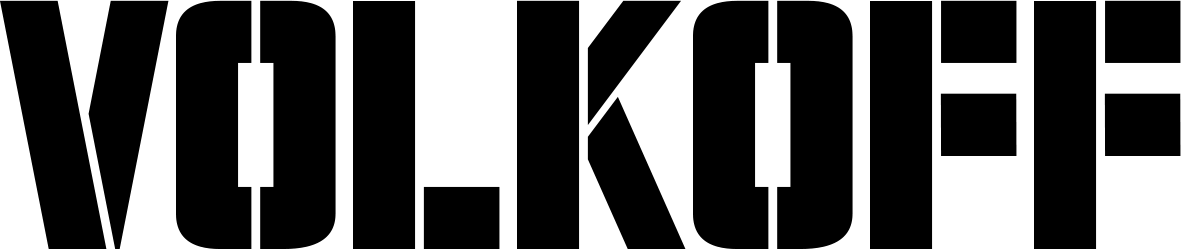
Volkoff Font
Every stencil font will give a kind of serious and edgy makeover to your words. This one is a typeface called Volkoff with two fonts in regular and italic. It can be used for any military texts or headlines, movie posters, formal event or channel banners, or army novel titles. Please note that this font only supports capital letters.
Volkoff is a stylized military-stencil typeface given upper-caps and a minor ‘Soviet-Era’ Russian flare with some glyphs (such as the backwards ‘R’.) Includes full alphanumerics, extended punctuation, Euro. Includes regular and italic weights.